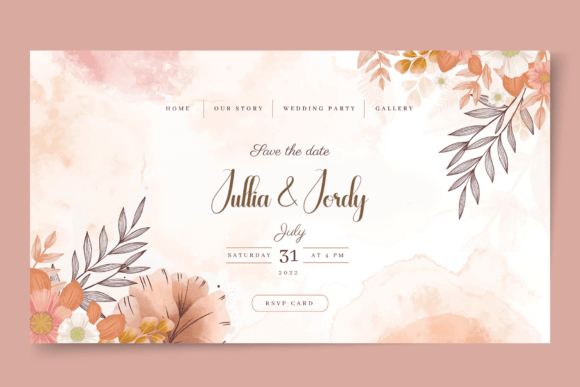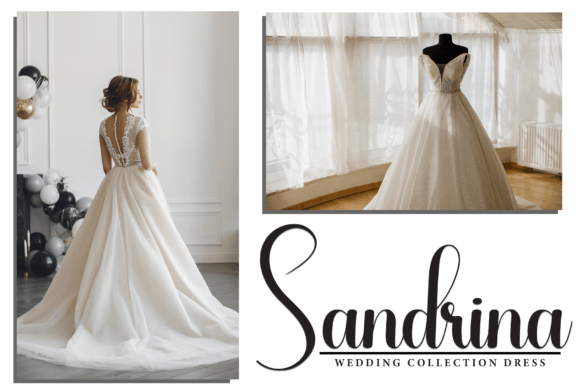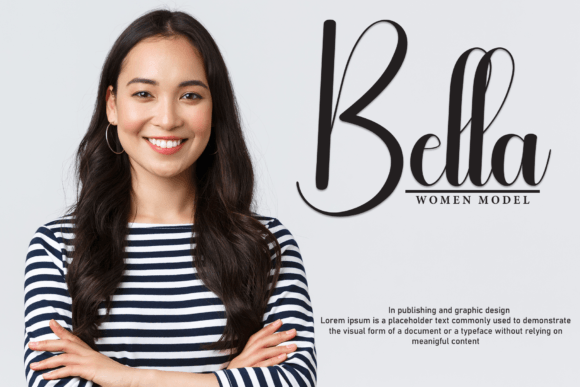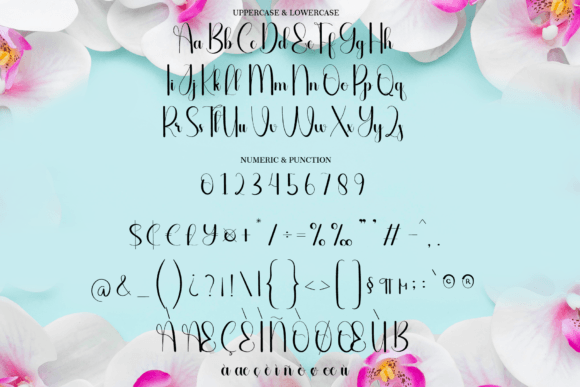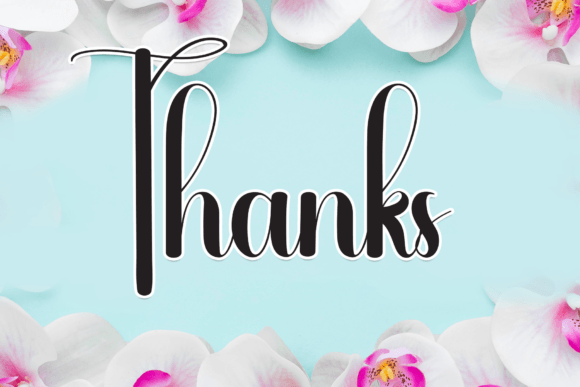
Adding a Personal Touch with Beautiful Font
Have you ever been browsing through a beautiful wedding invitation and felt an instant connection to the love story behind it? The handwritten touch, the elegant script, and the heartfelt message all came together to create a truly special moment. For designers, there’s a secret ingredient that can make any project stand out – a lovely font that speaks directly to the heart.
Meet Beautiful Font, a sweet and friendly handwritten font that’s perfect for adding a personal touch to any design. Whether you’re creating wedding invitations, cards, or any other project that needs a warm and inviting feel, Beautiful Font is the ideal choice. This fresh and casual font is not only beautiful but also easy to use, making it a valuable addition to any designer’s toolkit.
With Beautiful Font, you can add a touch of elegance and sophistication to your designs, making them truly unforgettable. Its versatility and charm make it a go-to font for designers who want to create something special and meaningful. So why settle for ordinary when you can have Beautiful Font to add that extra oomph to your projects?
Beautiful Font Key Features
- Unique Characteristics: Beautiful Font features a unique blend of modern and elegant design elements, including flowing curves and subtle texture, creating a sophisticated and professional look.
- Kerning and Ligatures: The font includes advanced kerning and ligature features, ensuring seamless text flow and a polished appearance in both body text and headlines.
Designer Review: Beautiful Font
Overall, I’m impressed with the ‘Beautiful Font’, it has some great qualities that make it a solid choice for designers. ✨ The font is highly legible, making it perfect for body text and reading materials. It also comes in a variety of weights, which is always a plus when it comes to creating visual hierarchy.
The font is also highly customizable, which is a major plus. ✨ With so many options to tweak, you can really make it your own and tailor it to fit your specific design needs. Additionally, the font is well-suited for digital applications, making it a great choice for websites, mobile apps, and more.
- ⚠️ Limited use in print design: While the font is great for digital applications, it may not be the best choice for print design. The font can look a bit pixelated when scaled up, which may not be ideal for print materials.
- ⚠️ Limited support for certain languages: Unfortunately, the font doesn’t support certain languages, which may limit its use in international design projects.
Overall, I would say that the ‘Beautiful Font’ is a solid choice for designers who need a clean, legible font for digital applications. While it has some limitations, the font’s versatility and customizability make it a great option for many projects. With a bit of tweaking and experimentation, you can really make this font shine.
Beautiful Font is ideal for:
- Designing elegant and sophisticated documents.
- Creating eye-catching presentations and slides.
- Adding a touch of elegance to your social media graphics.